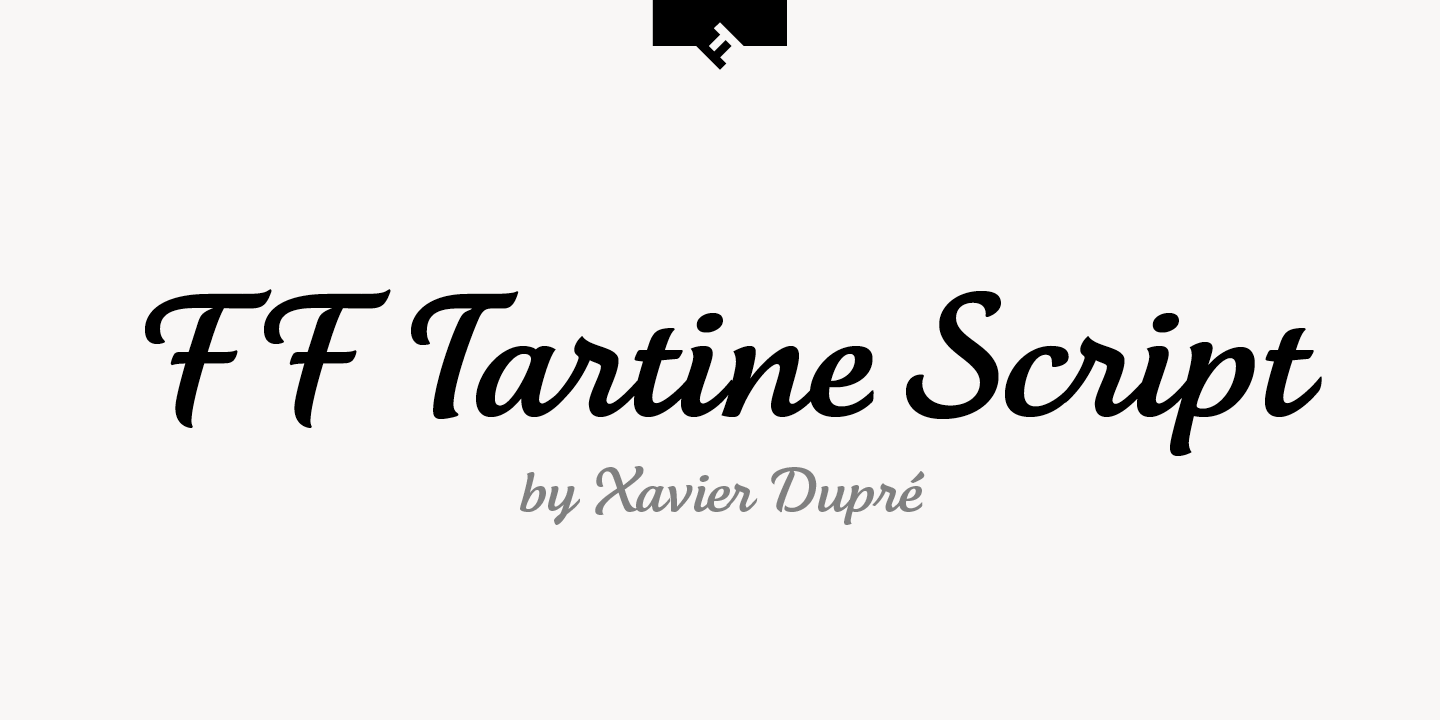
FF Tartine Script Font is perfect for artisanal bakery branding, gourmet restaurant menus, French café signage, sophisticated food packaging, culinary magazine headers, wine label designs, elegant cookbook layouts, boutique patisserie materials, artisan food market displays, and gastronomic event invitations.
What makes FF Tartine Script Font so exciting is its culinary elegance that captures the sophisticated artistry and French-inspired refinement of gourmet food culture. This typeface features flowing script letterforms with graceful curves and gastronomic character that evokes the artisanal craftsmanship of fine French cuisine and bakery traditions. The font's sophisticated and appetizing character communicates culinary excellence and artisanal quality, making it perfect for food brands seeking to establish premium positioning through the timeless appeal of French gastronomic heritage and culinary artistry.
FF Tartine Script Font family includes Regular and Bold script weights, along with decorative swashes and culinary flourishes. The family also features special character sets including culinary symbols, French accent marks, and gastronomic decorative elements that enhance the font's connection to artisanal food culture and French culinary tradition themes.
FF Tartine Script Font supports comprehensive character sets including Latin alphabets with French accents, numbers, punctuation marks, and special culinary symbols. The font's elegantly flowing spacing reflects artisanal craftsmanship while ensuring excellent readability across all gastronomic applications. Its OpenType features include contextual alternates, culinary ligatures, and French-inspired decorative elements that expand creative possibilities for sophisticated food design projects.
Professional designers choose FF Tartine Script Font for projects requiring authentic culinary appeal and French gastronomic aesthetics. The font excels in applications where artisanal quality and sophisticated food culture are essential, offering the perfect solution for brands seeking to communicate gourmet excellence, culinary artistry, and connection to French gastronomic tradition. Its script character makes it ideal for bakeries, fine dining restaurants, and artisanal food producers.